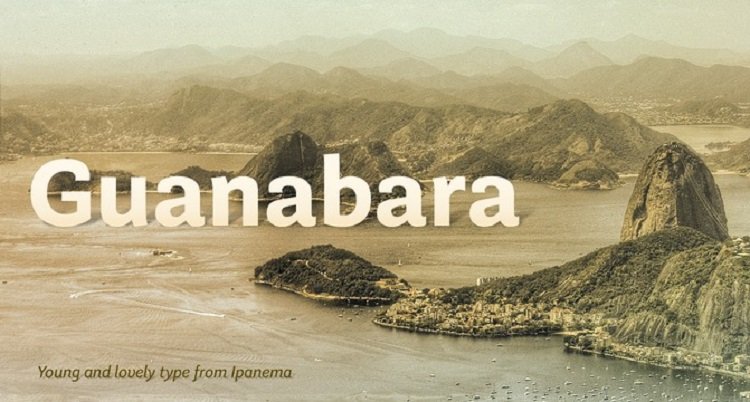
Guanabara Sans Font
Guanabara is the third release of Plau Type Foundry. It started from the need of a wayfinding typeface that had personality enough to be the brand typeface for a city.
The city of Rio de Janeiro, with its never-ending curves and all year long summer weather provided the constraints and requirements of this typeface.